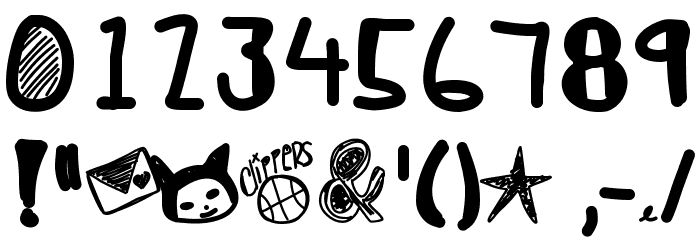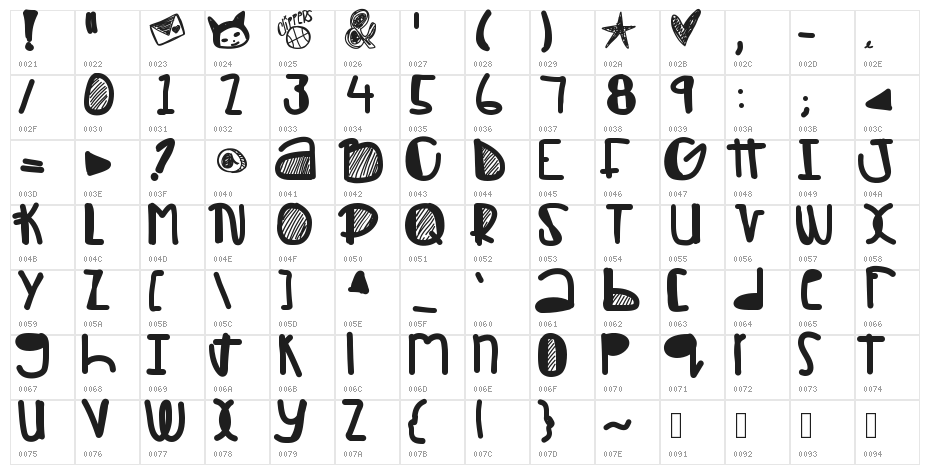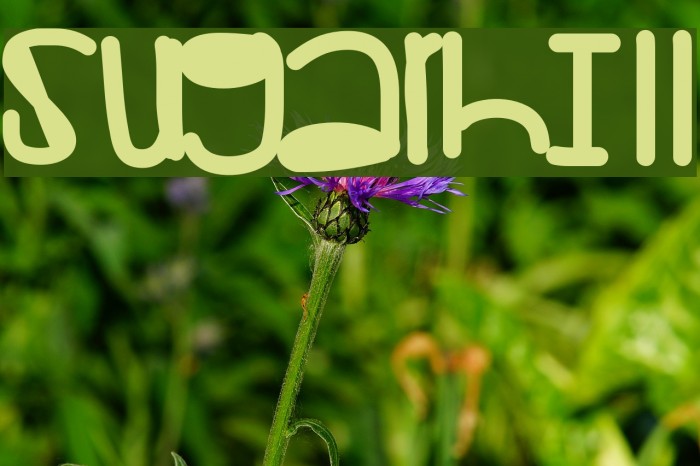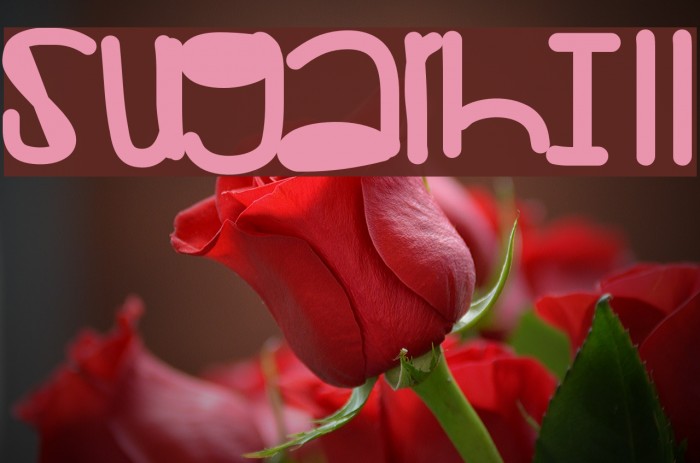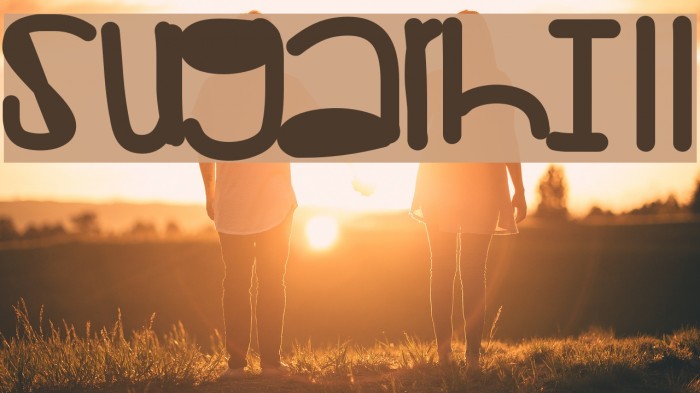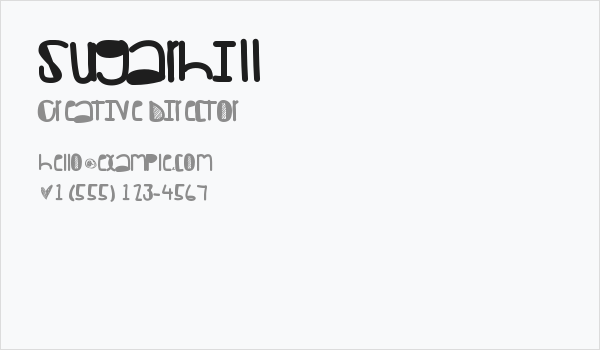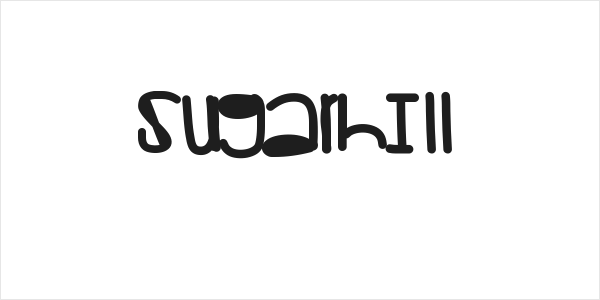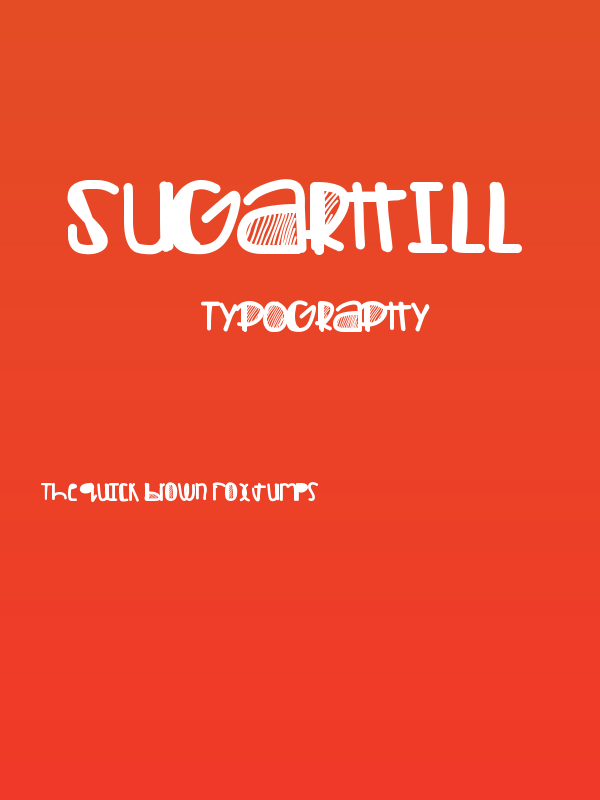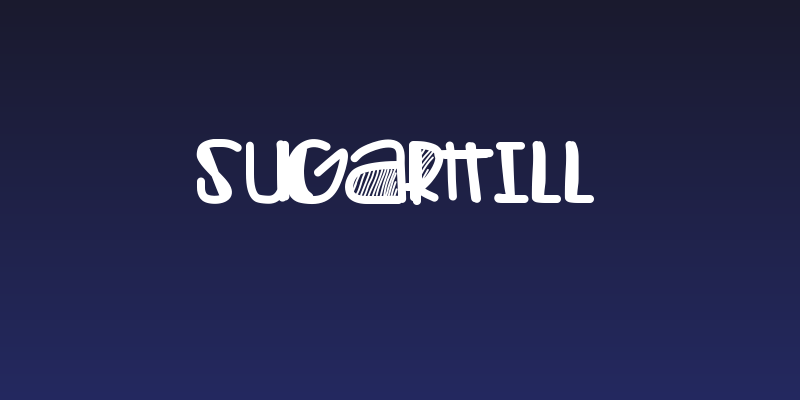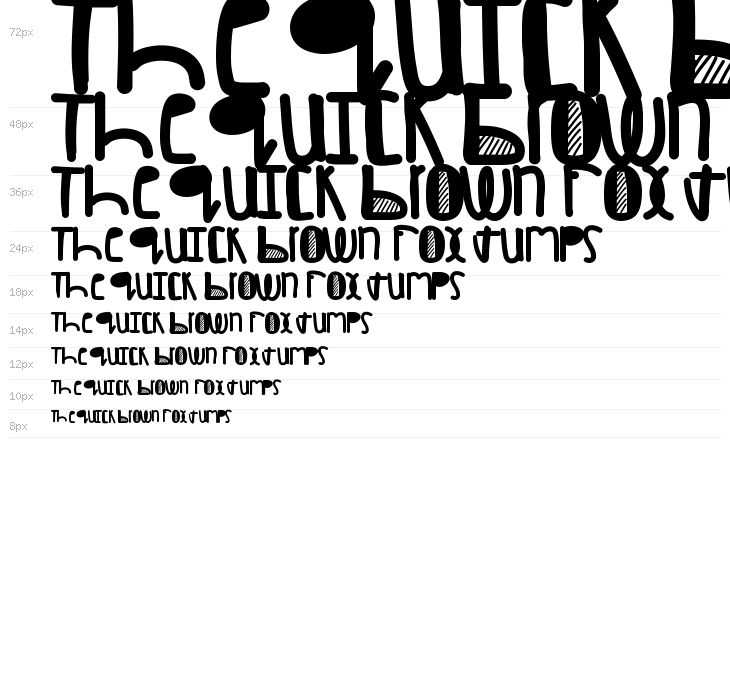
Sugarhill Font
Sugarhill Description
This playful and bold font features a unique, hand-drawn style with a mix of thick and thin strokes, creating a lively and energetic appearance. The uppercase and lowercase letters are characterized by their rounded edges and whimsical shapes, giving them a friendly and approachable feel. The numbers and special characters maintain this playful aesthetic, with some characters incorporating fun, illustrative elements. The font's irregularities and dynamic forms make it ideal for creative projects that require a touch of personality and flair.